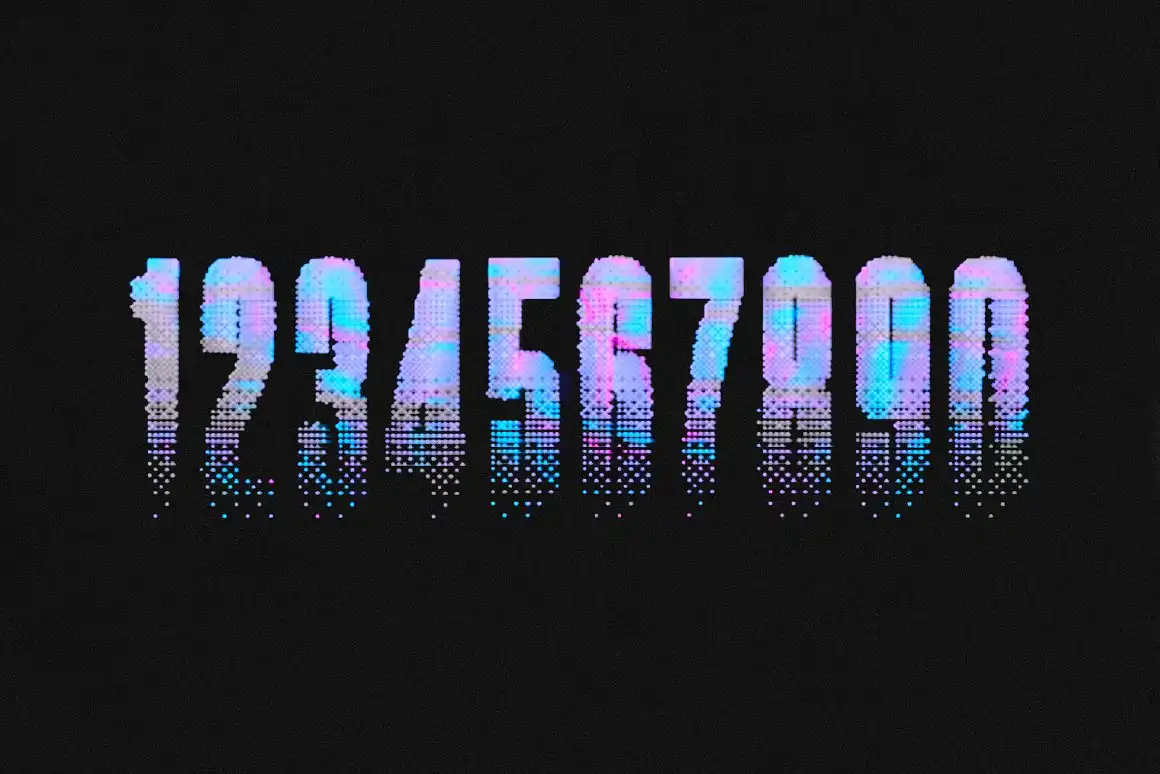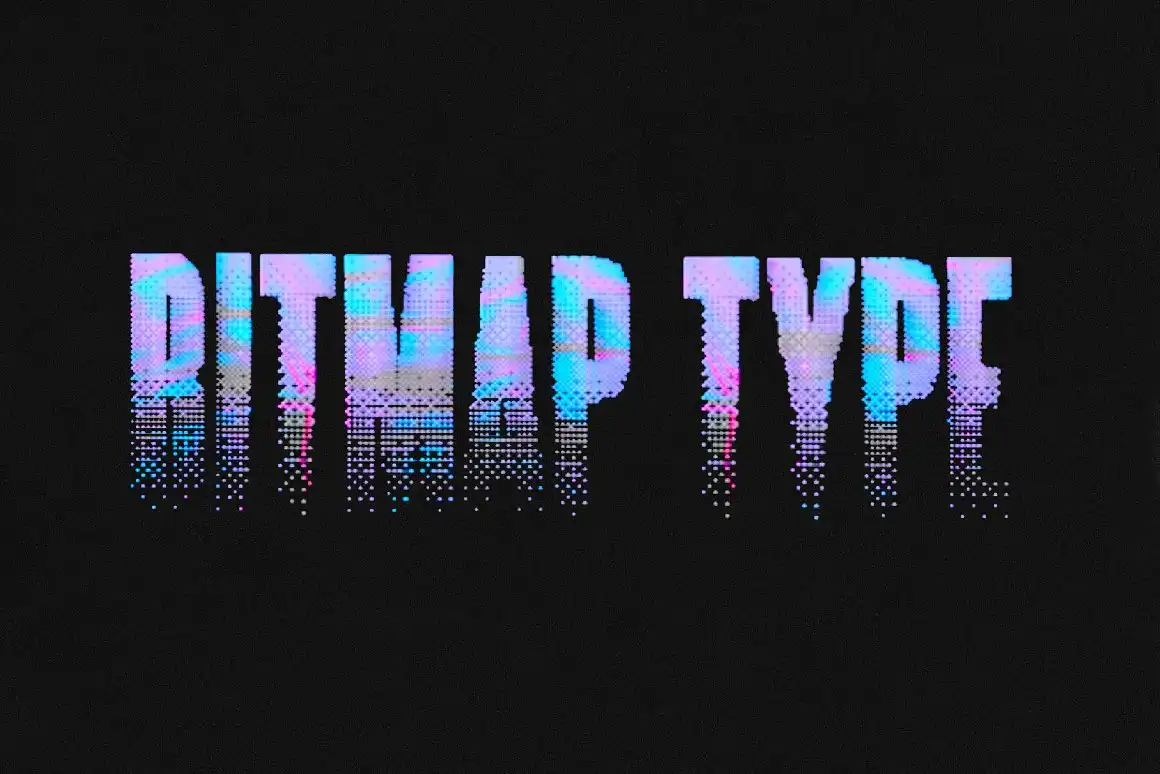
Welcome to the World of Retro VHS Typeface!
Looking for a unique and playful digital download? Meet the BITMAP TYPE – RETRO VHS TYPEFACE! 🌟 This pixelated font brings a nostalgic vibe to your creative projects, reminiscent of retro VHS visuals that will surely inspire your imagination. With instant access, you can dive right into your design journey!
Crafted by the talented Nickjaykdesign, this font is not just any ordinary typeface. It includes all letters, numbers, and special characters packaged into one powerful PSD file, making it perfect for your artistic endeavors. ✨ Whether you’re creating vintage-style graphics or modern designs with a retro twist, this font is your go-to choice!
- Comprehensive Character Set: All letters, numbers, and special characters included, allowing for versatile design options. 🎨
This typeface is ideal for graphic designers, digital artists, and anyone looking to add a touch of retro flair to their projects. Whether you’re crafting posters, social media graphics, or any creative work, the BITMAP TYPE – RETRO VHS TYPEFACE will elevate your designs! 🎉